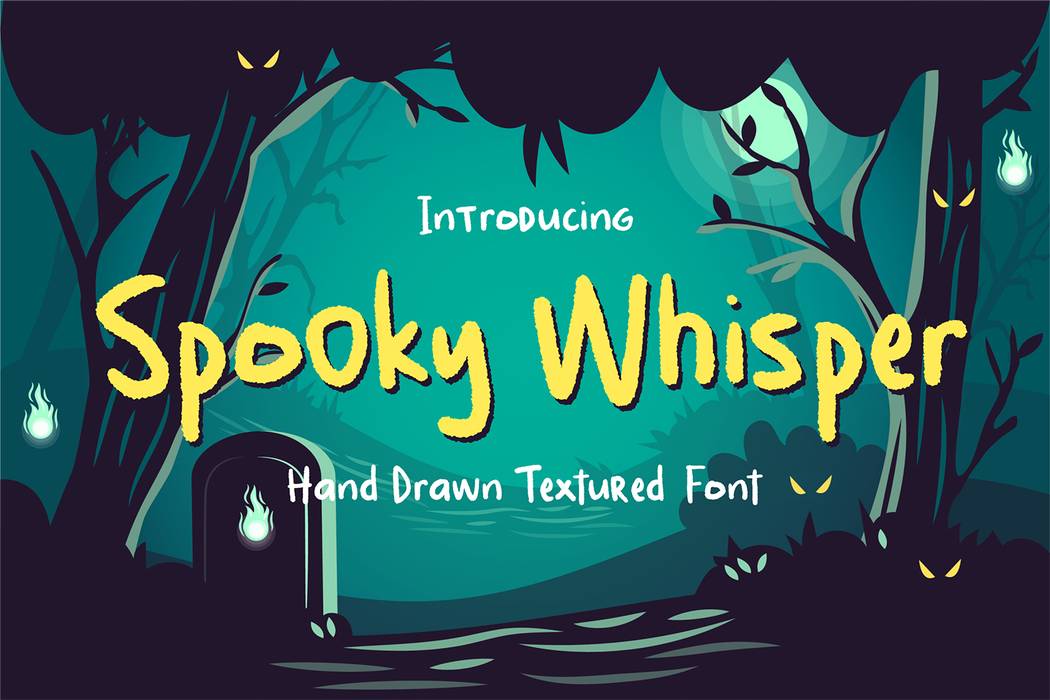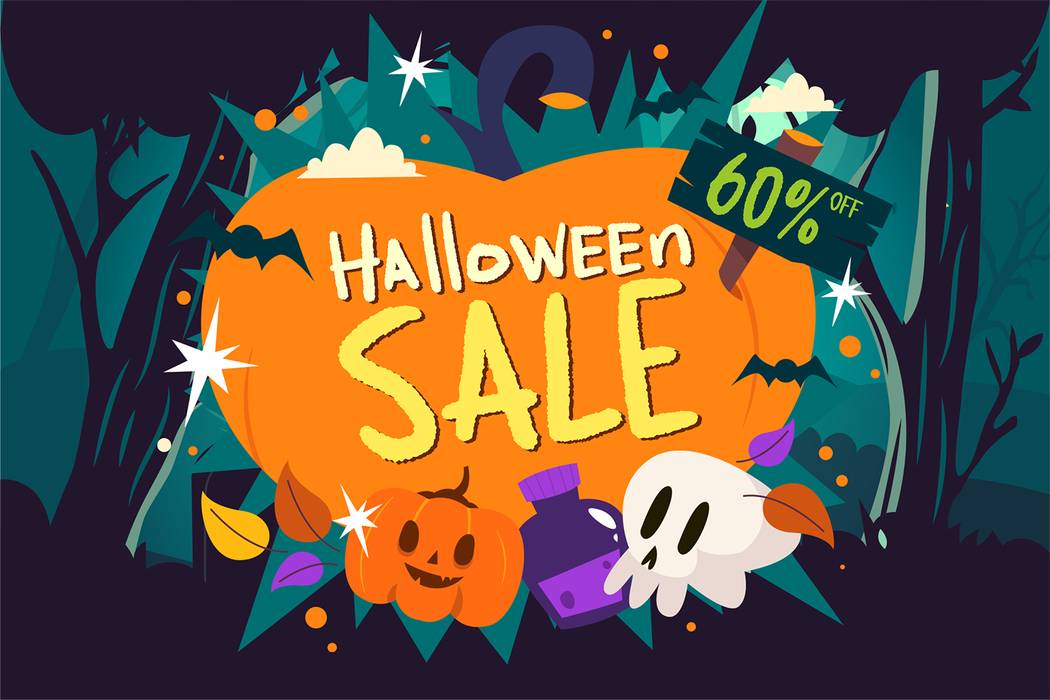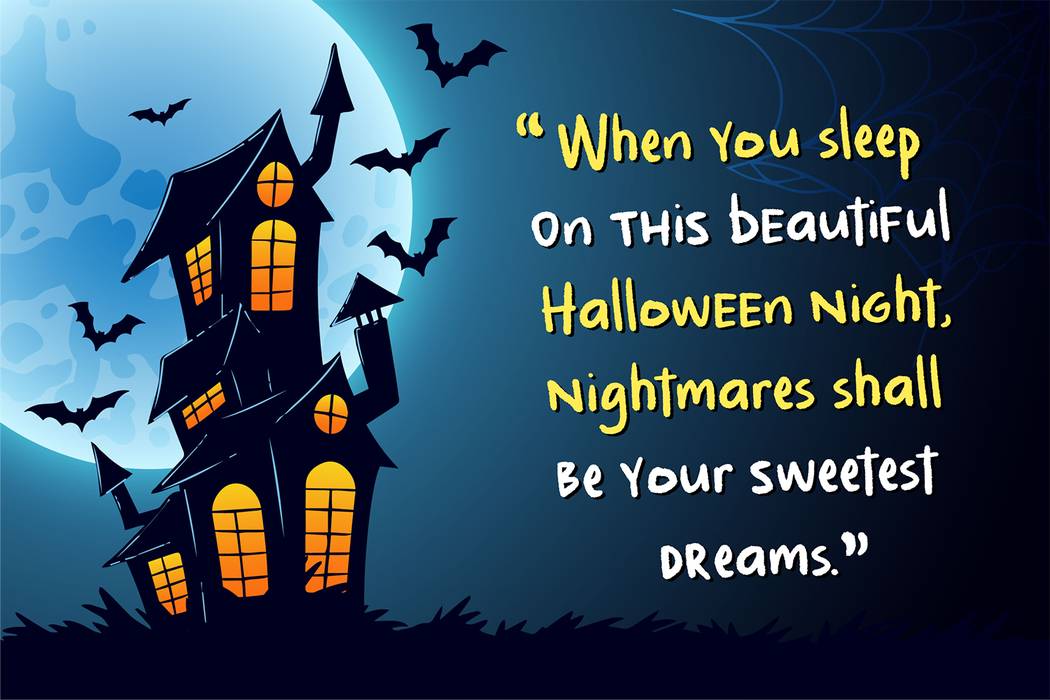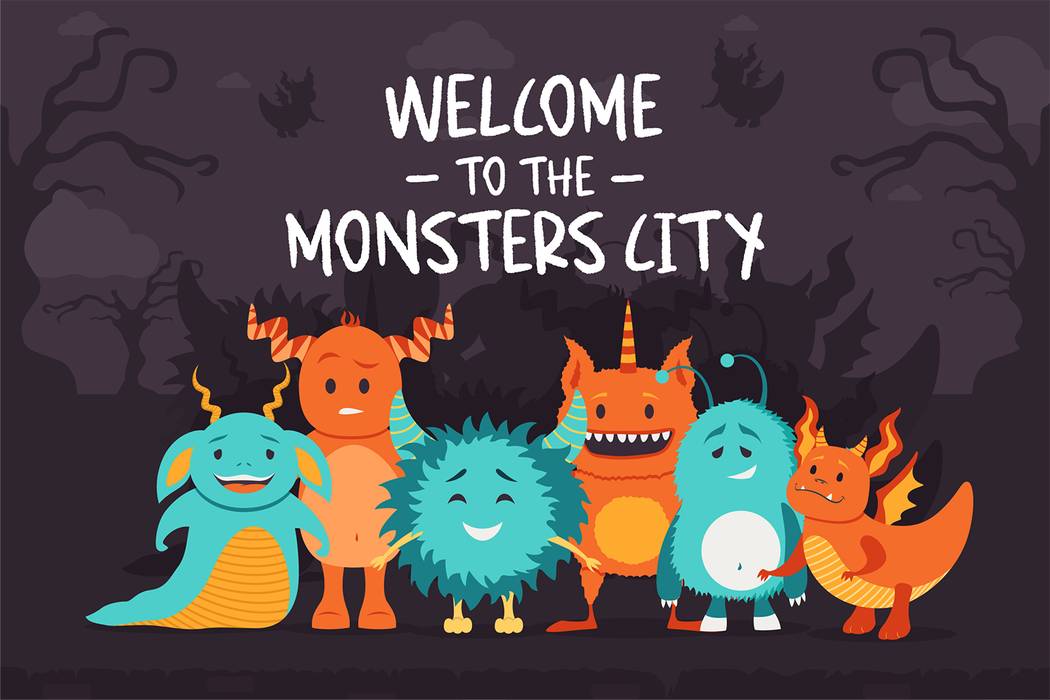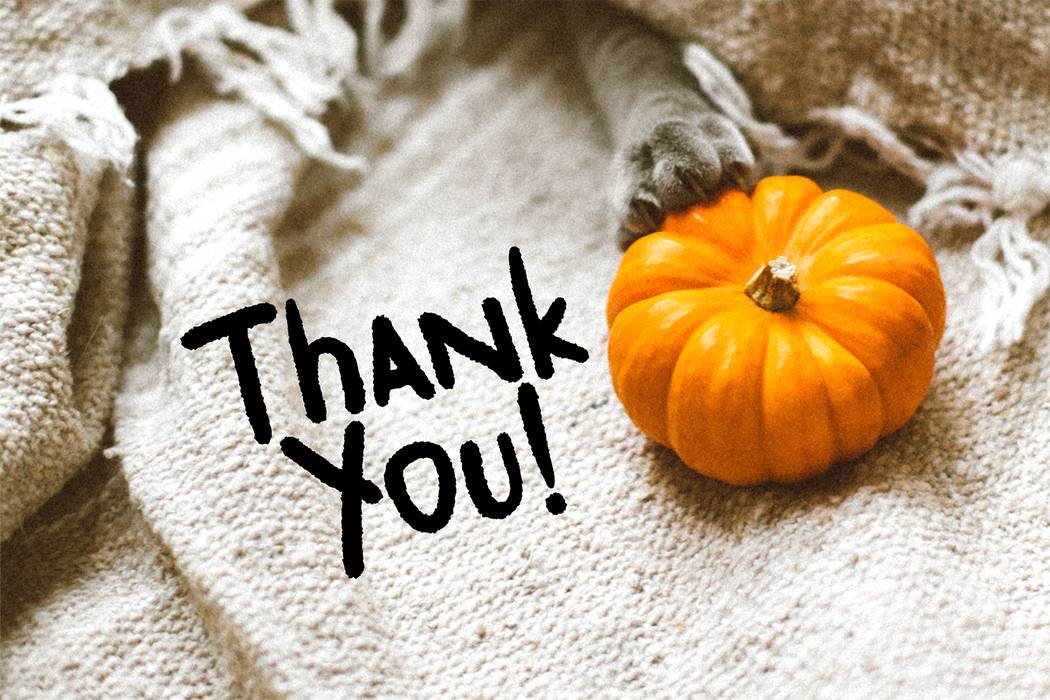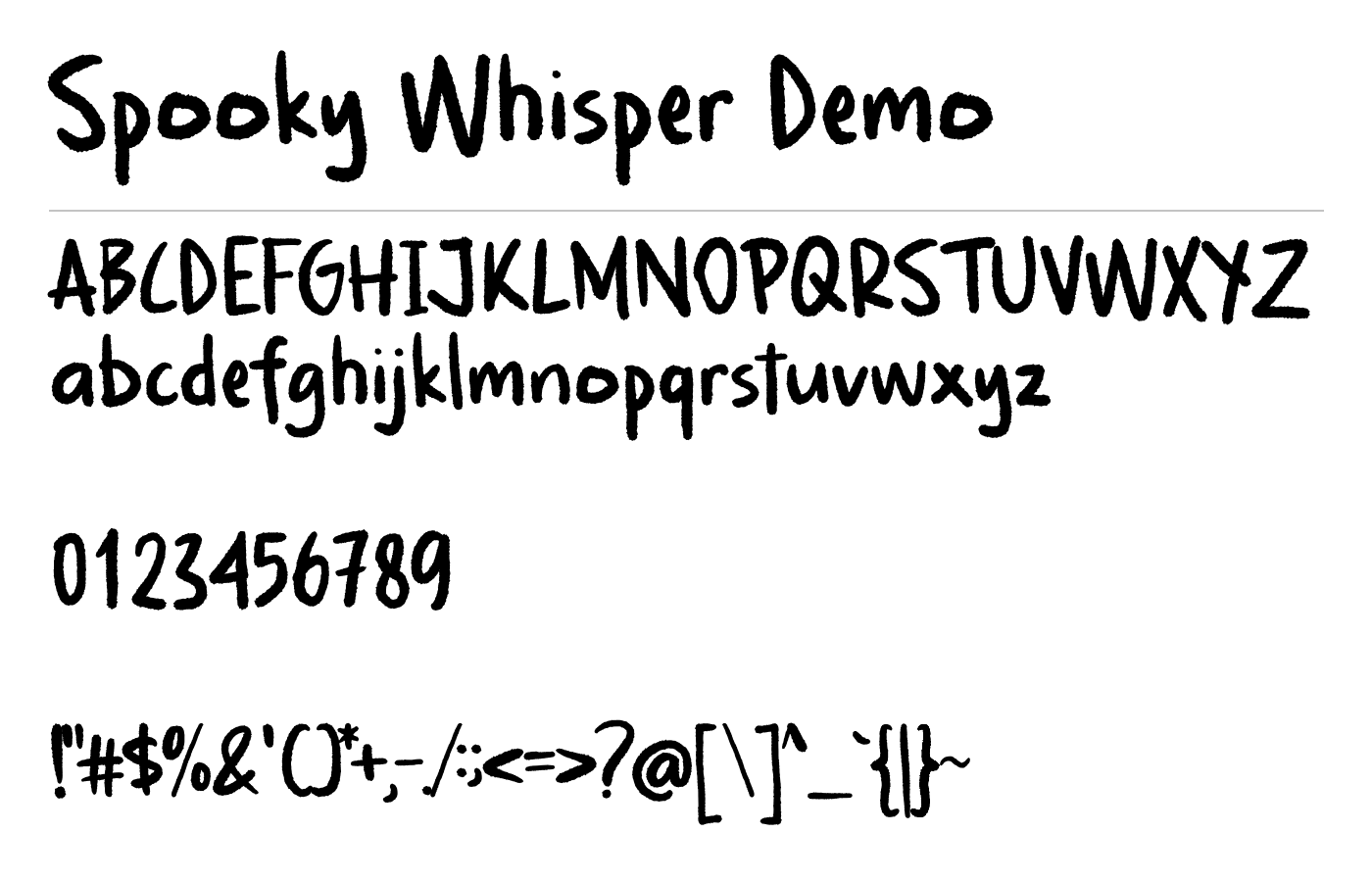
Spooky Whisper is a playful handwritten sans serif font with a casual, uneven stroke that gives it a charming, slightly rough texture. Its bold weight, moderate x-height, and quirky letterforms make it perfect for adding a friendly, informal touch to Halloween-themed designs, party invitations, or creative projects that need a fun and approachable vibe. This font works well in headlines and short texts where personality and expressiveness are key.
Spooky Whisper Font
About Spooky Whisper Font